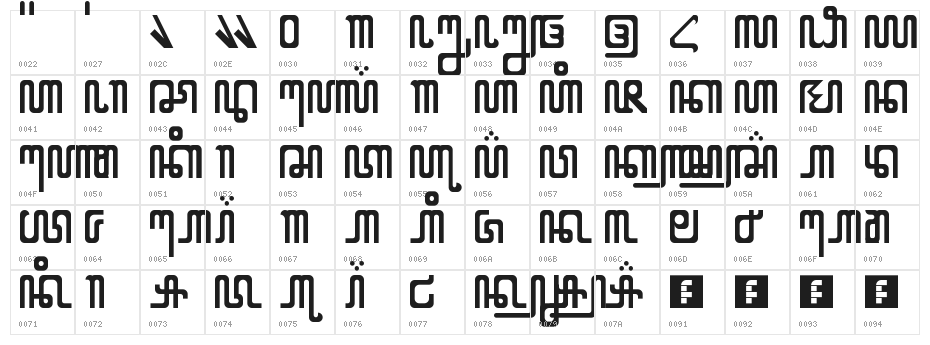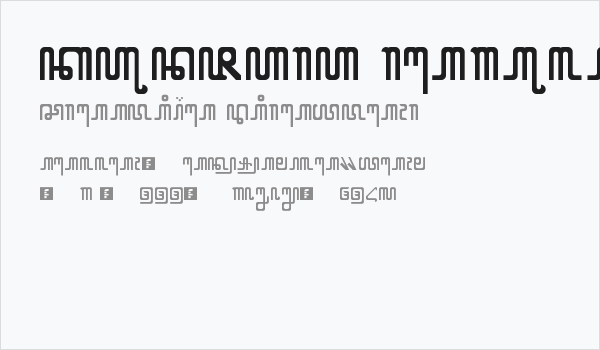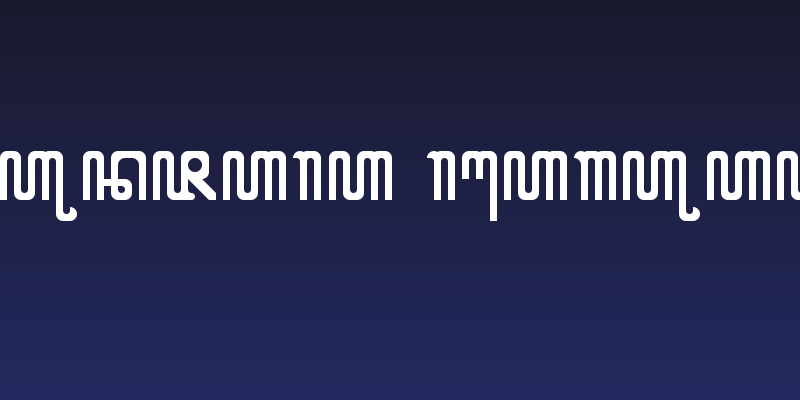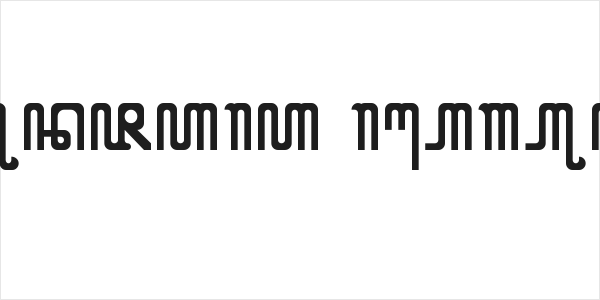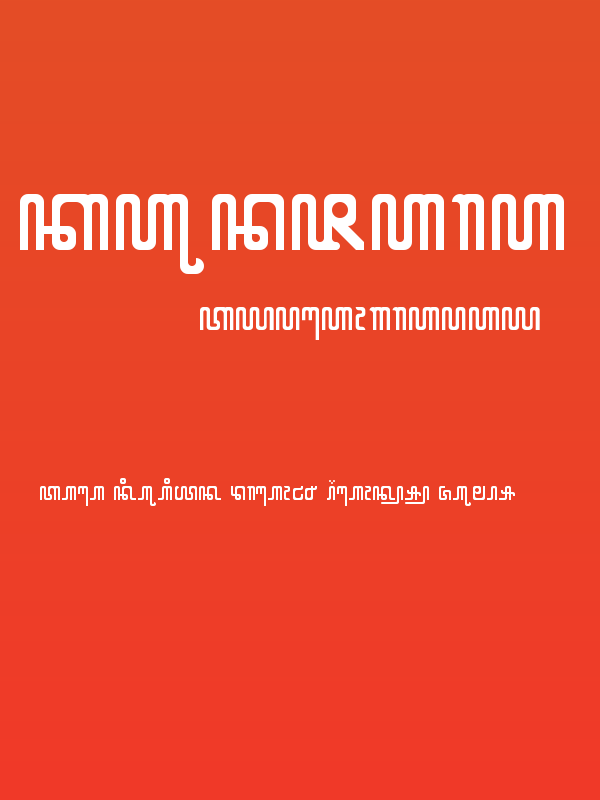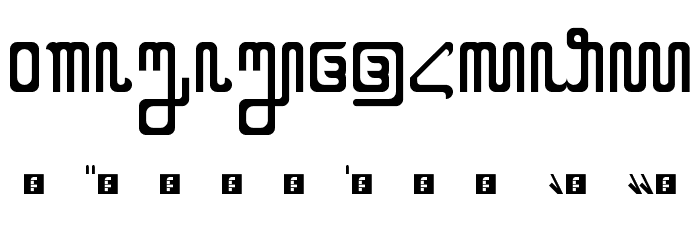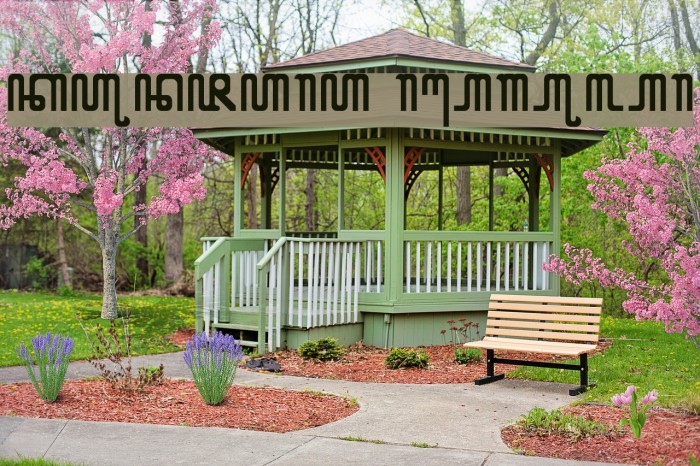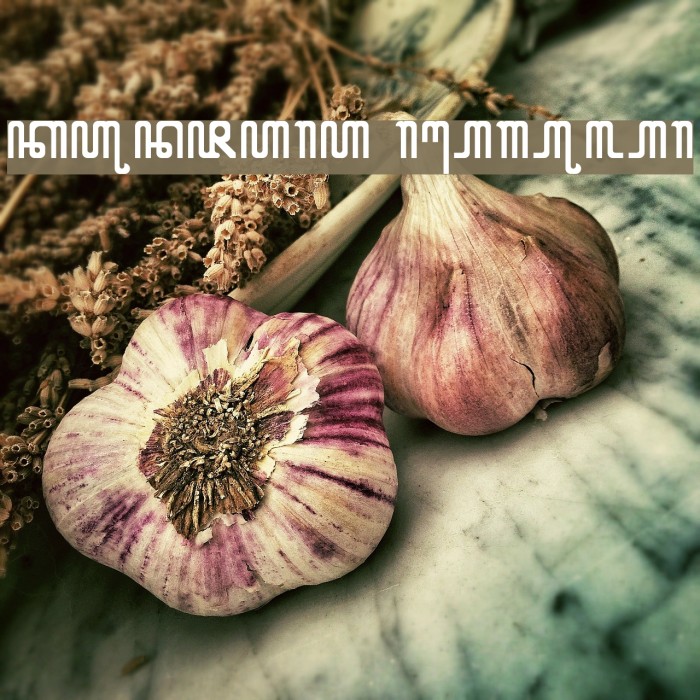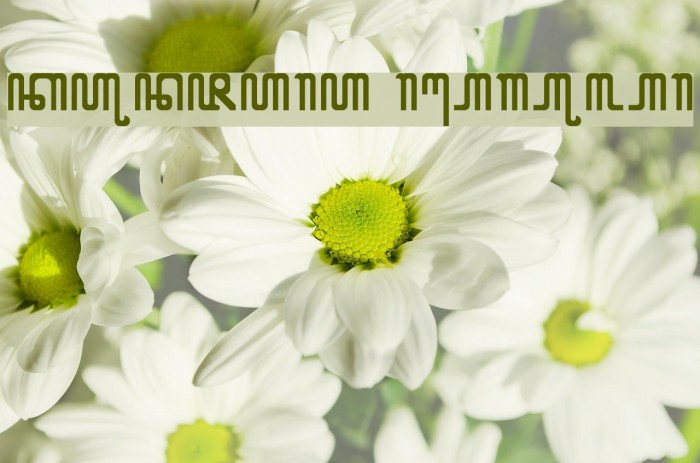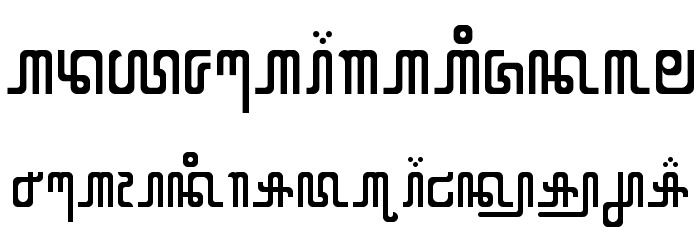
KUNJARA Regular Font
KUNJARA Regular Description
This font features a unique and modern design with a distinct geometric structure. The characters are composed of bold, rounded lines that create a sense of fluidity and movement. The uppercase letters maintain a consistent height, while the lowercase letters are slightly smaller, providing a balanced visual hierarchy. The numerals and special characters are designed to match the overall style, ensuring a cohesive appearance. The font's clean lines and contemporary aesthetic make it suitable for a variety of design applications.